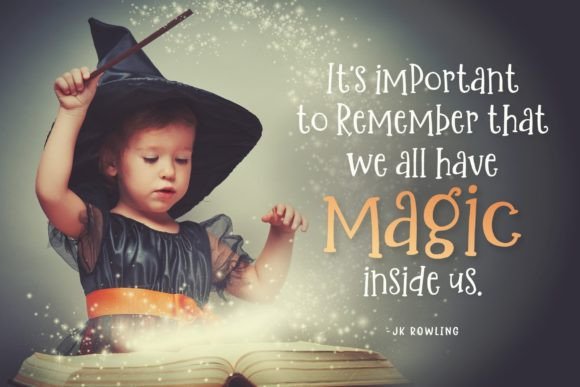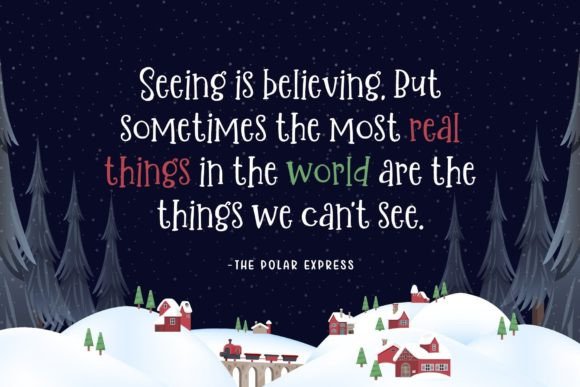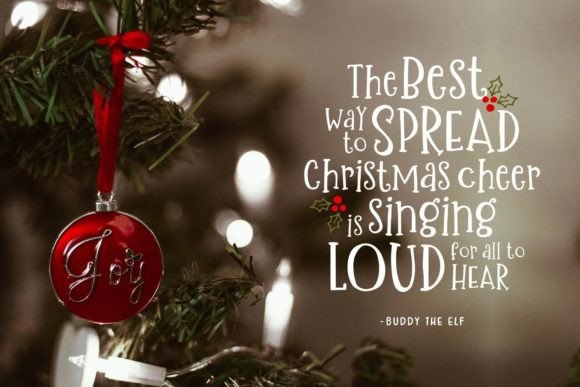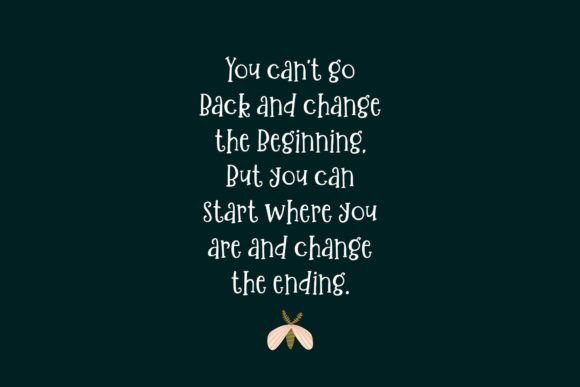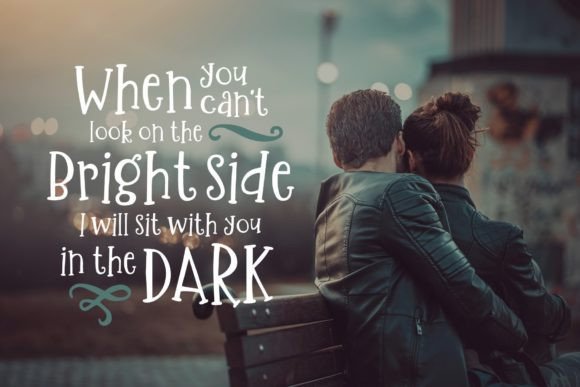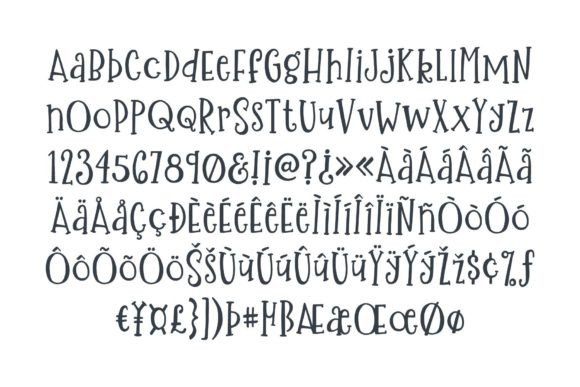
Introduction to Gingers Font
Gingers is a sweet and curly slab serif font.
It is perfect for the holiday season or any time of the year when you need to add a little whimsy and charm Looks great in large sizes as well as is very readable in smaller sizes.